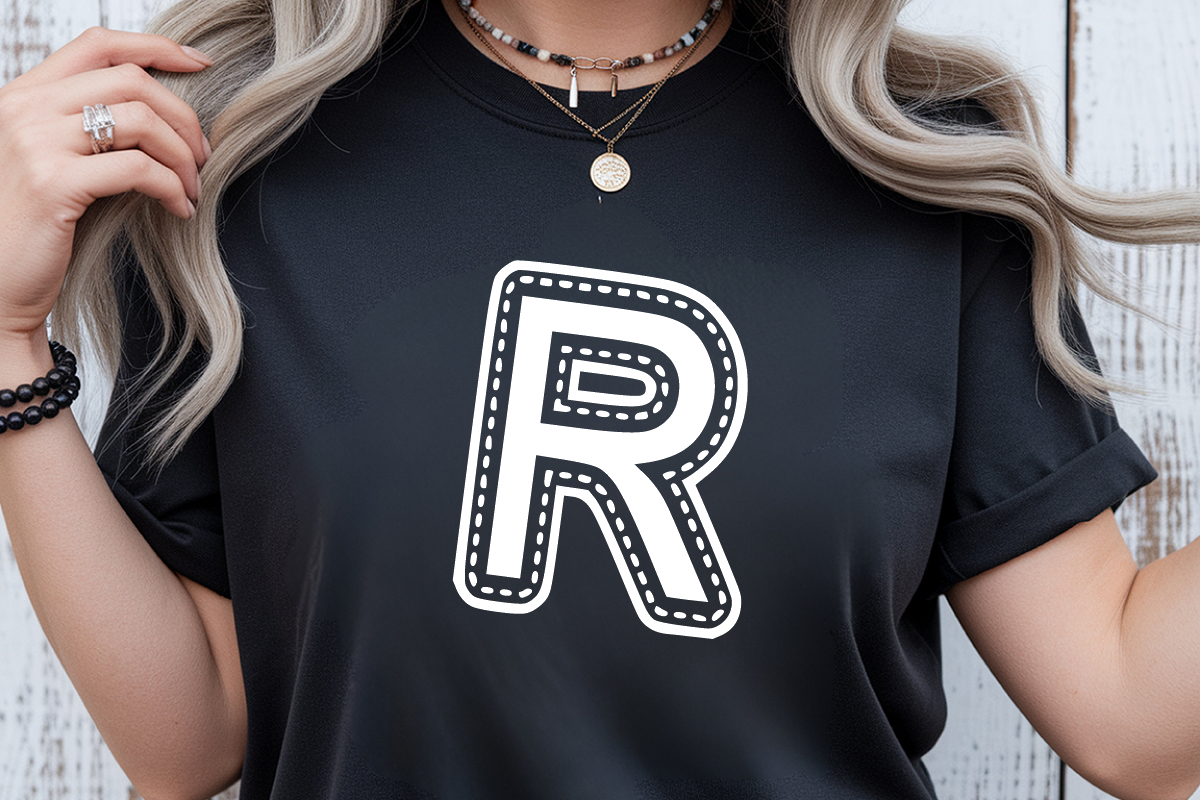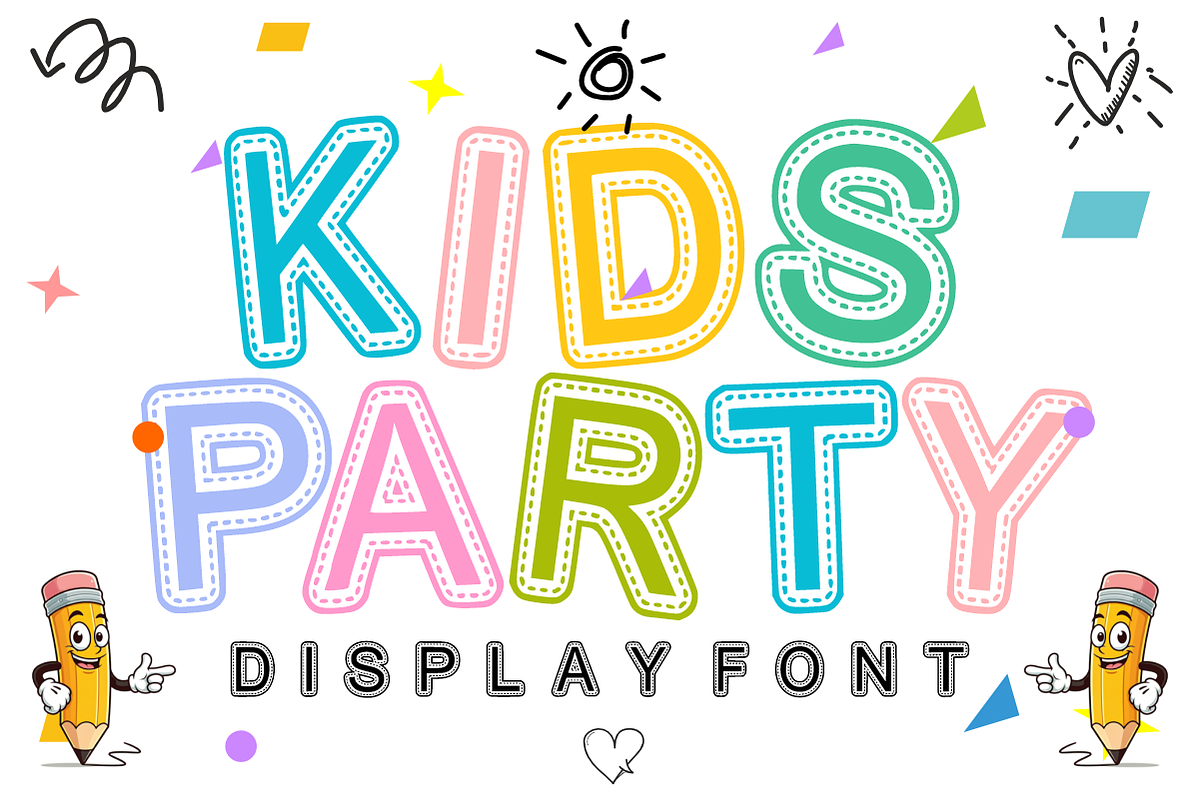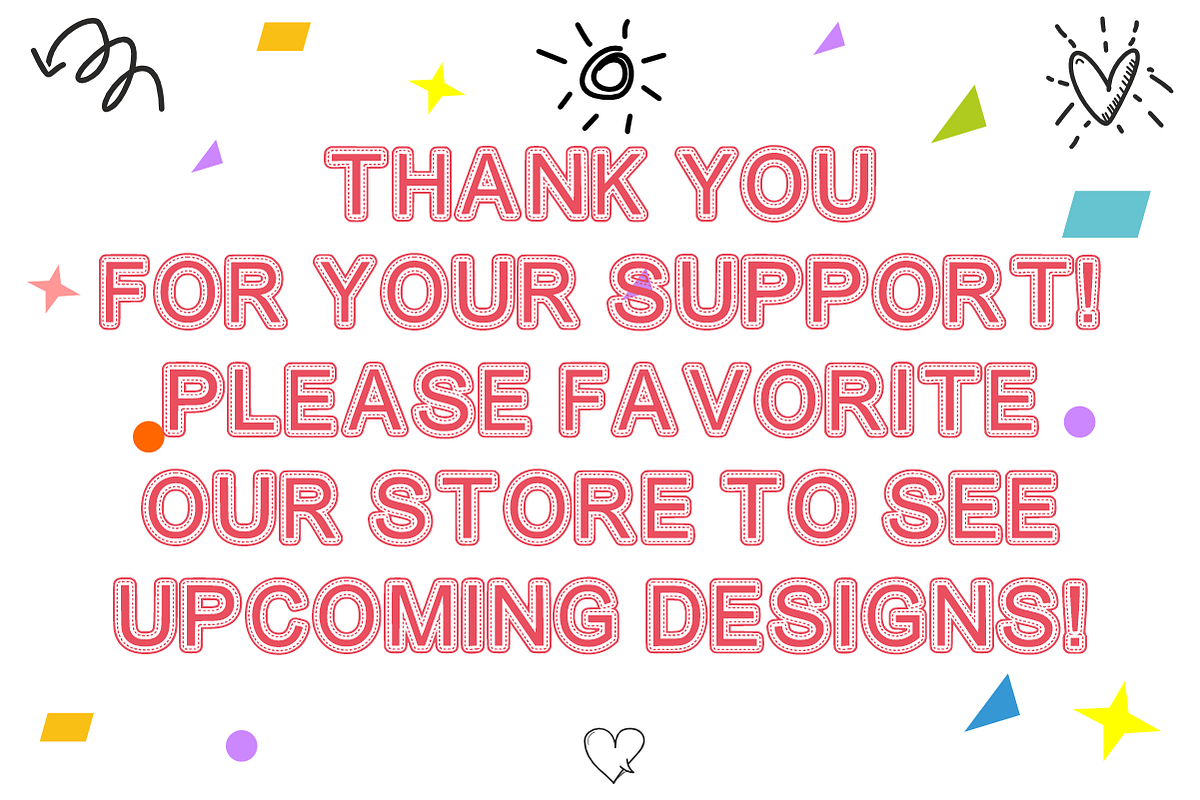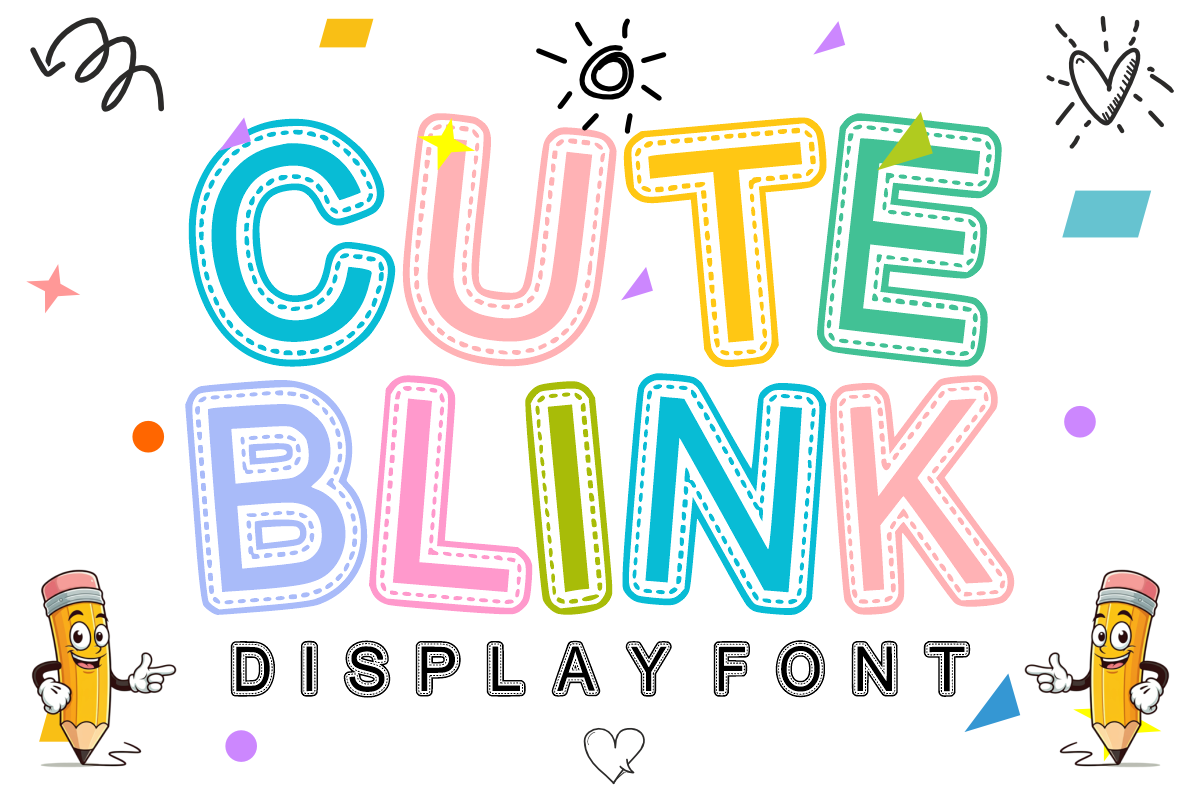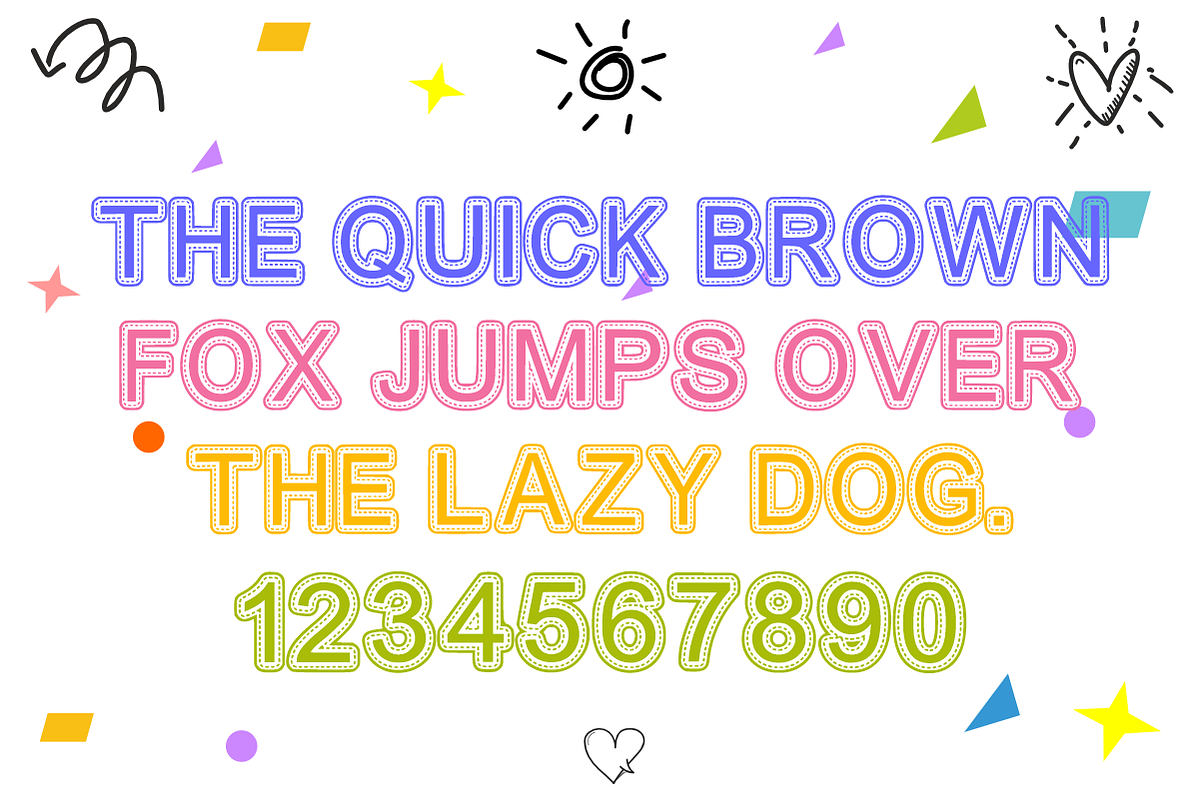
Cute Blink - Stitched Kids Font
Cute Blink is an adorable, playful display font featuring rounded letterforms detailed with charming stitched dash inline accents. Combining sweet embroidery patch texture with clean schoolhouse charm, this cute font brings a fun, handcrafted pop to classroom projects, kids' apparel, stickers, and custom craft designs. Every character is cleanly vectorized to guarantee high-resolution prints and smooth, effortless cutting on Cricut and Silhouette machines.
Uppercase Character Set
Numbers & Basic Punctuation